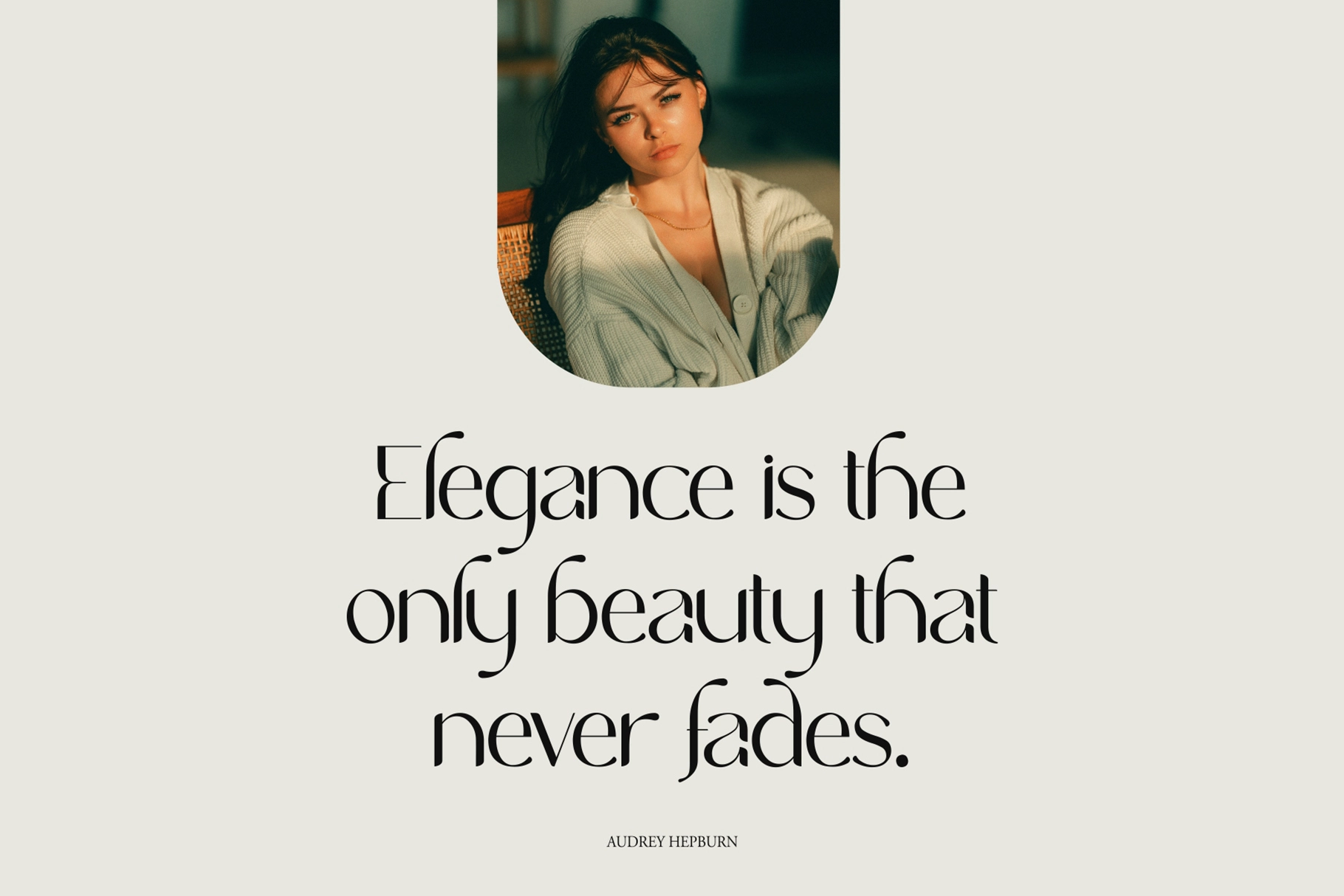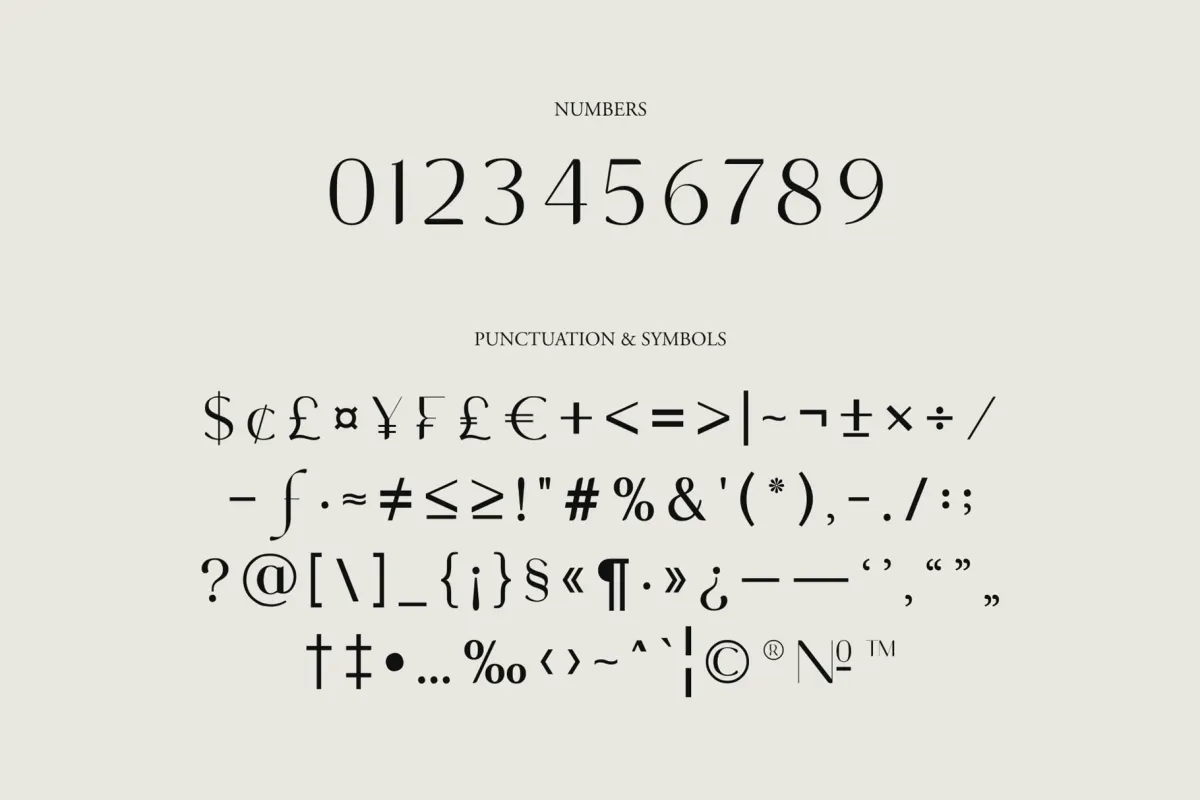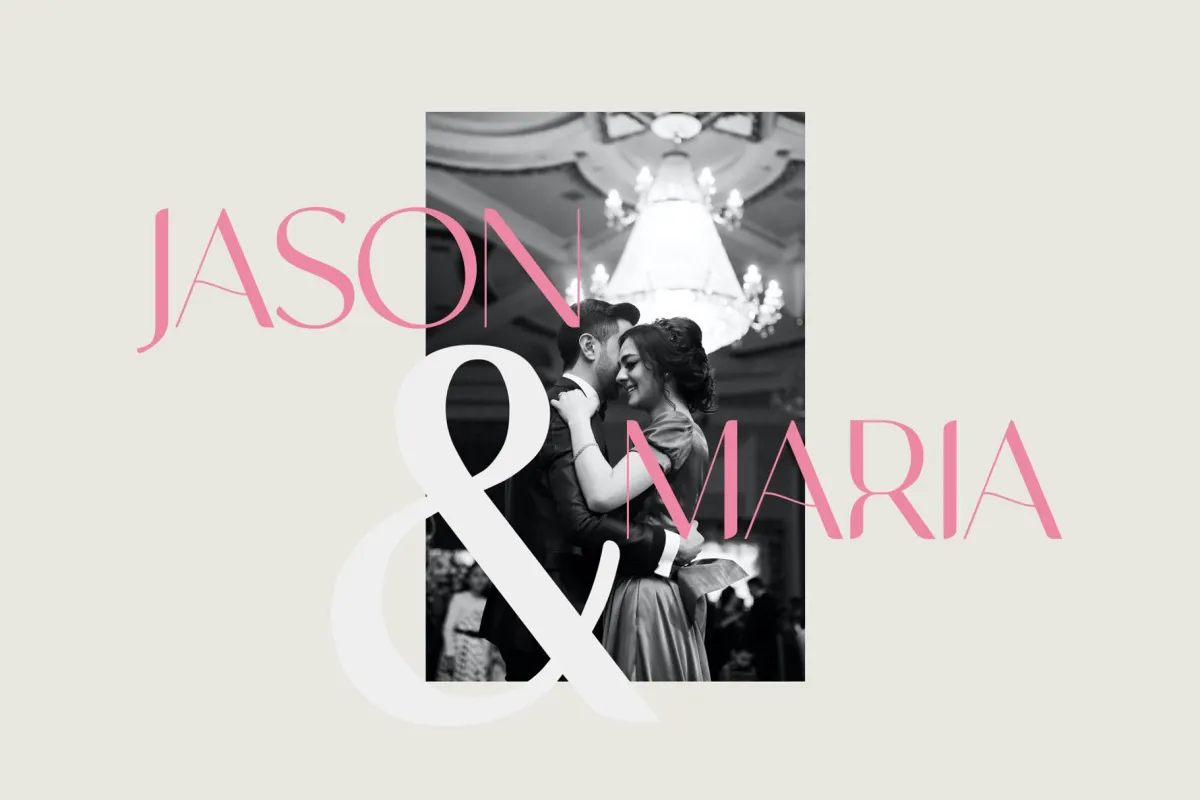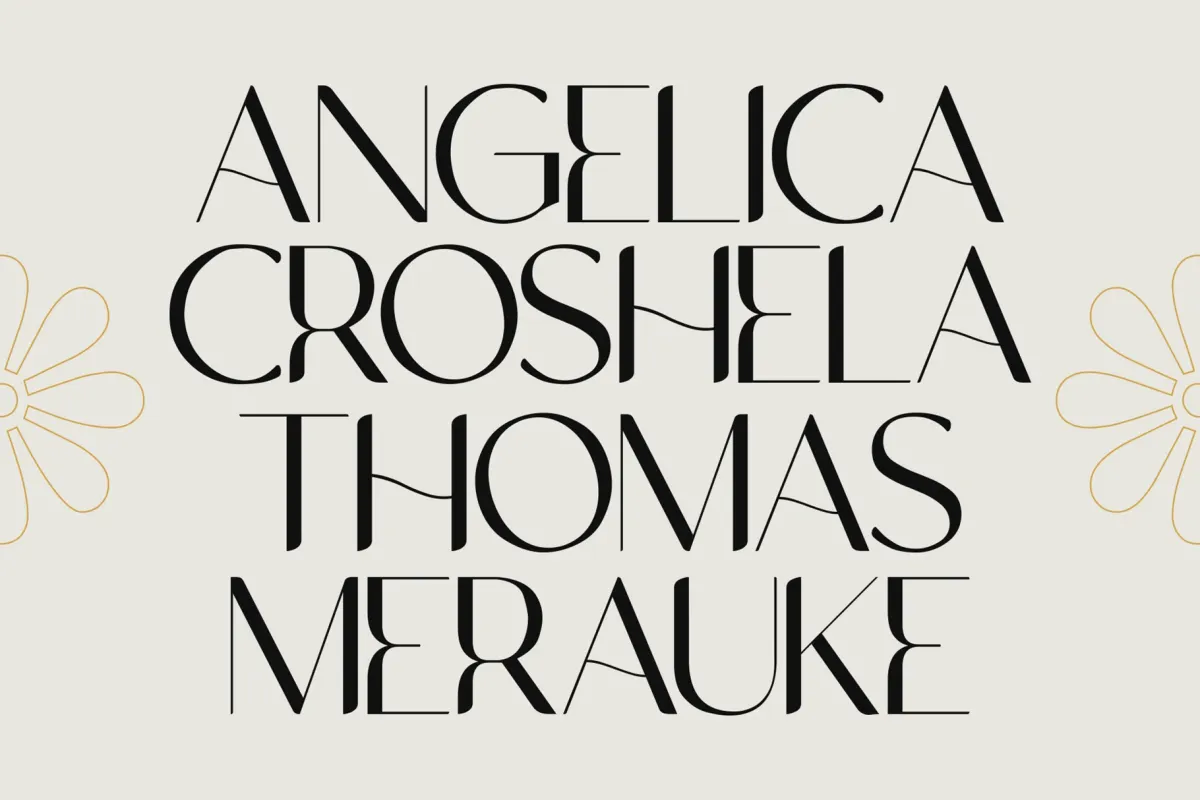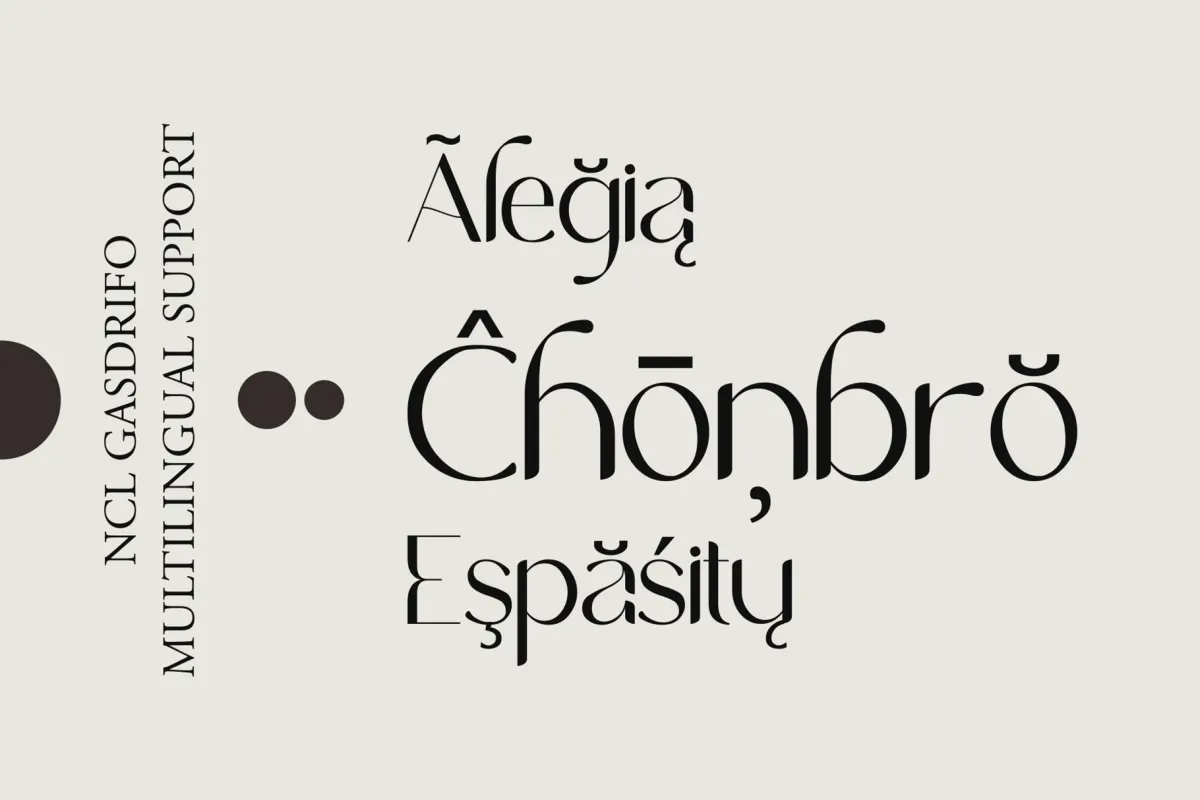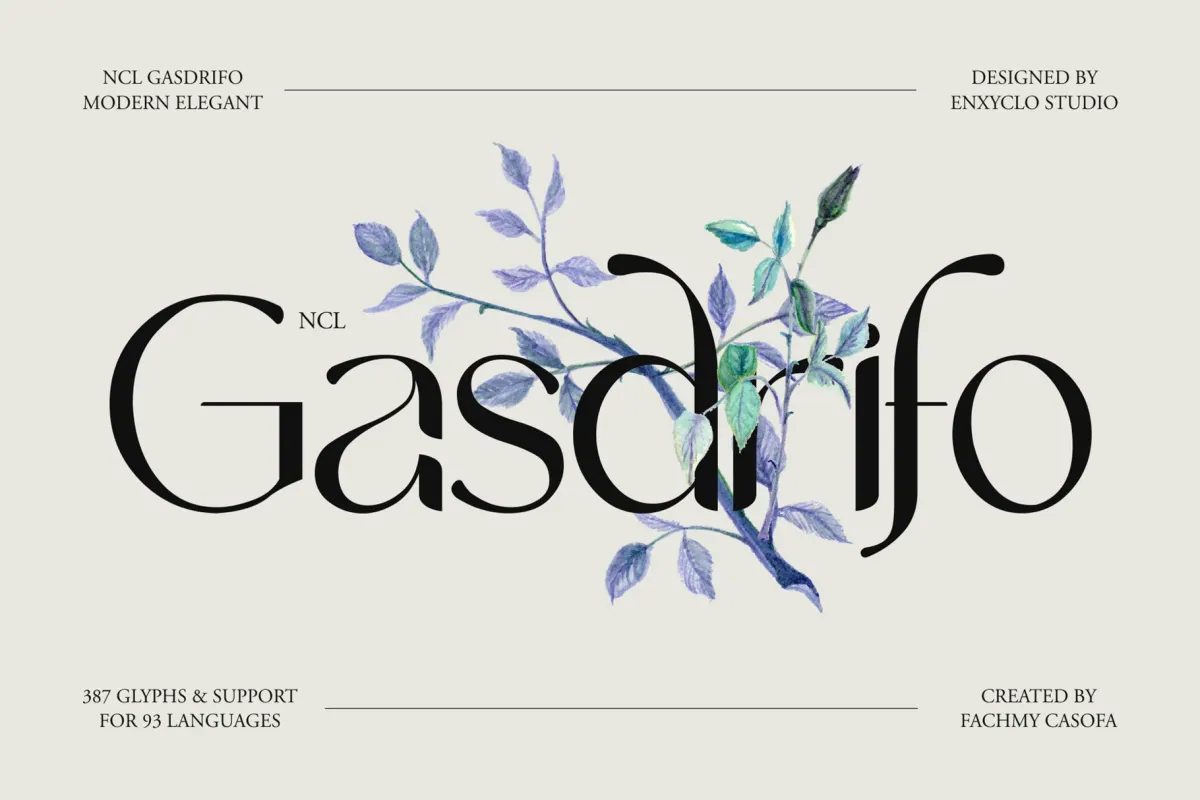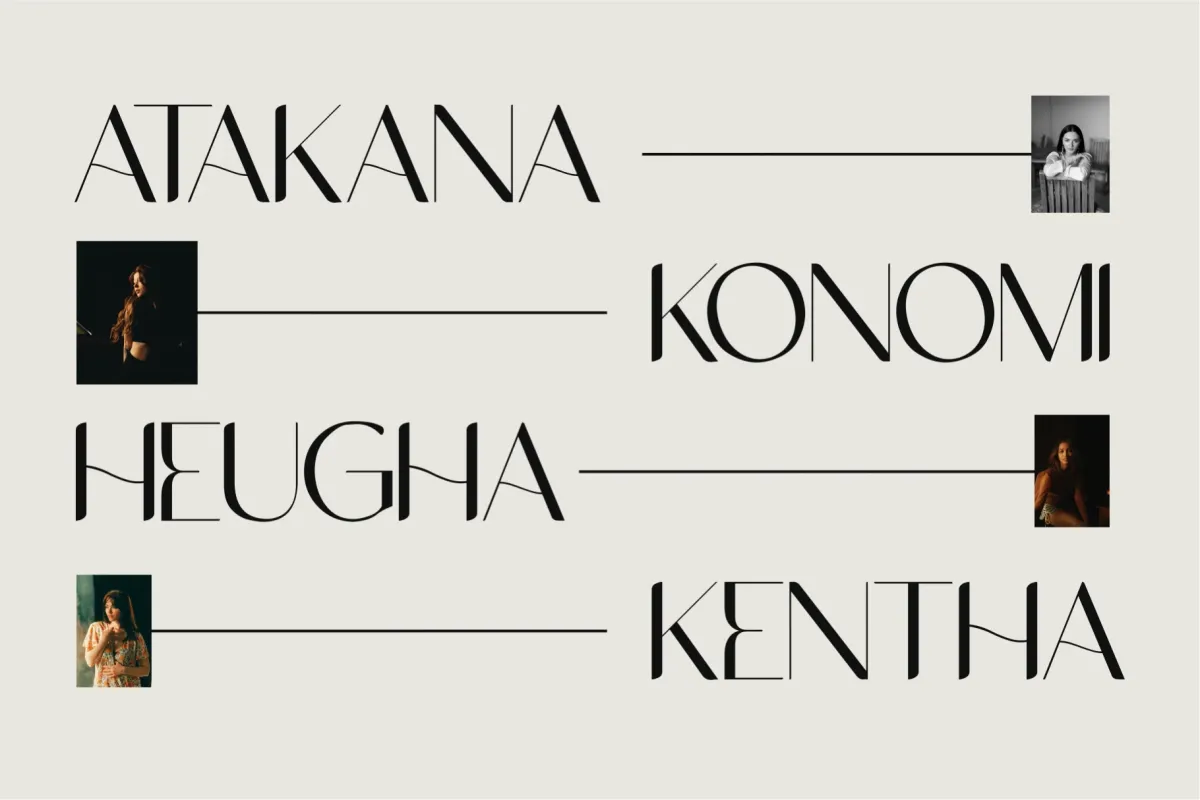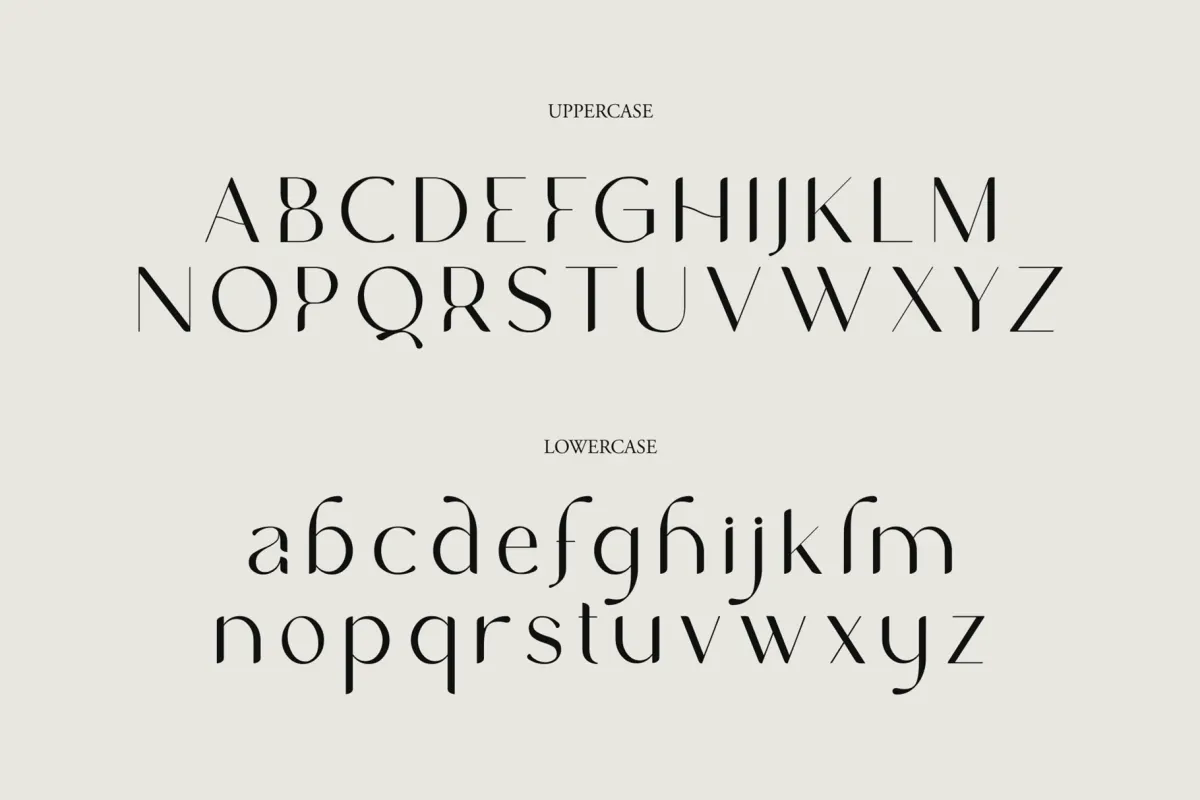
Gasdrifo - Luxury Elegant Font
Gasdrifo – Luxury Elegant Font is a refined modern typeface designed to bring sophistication and style to contemporary design projects. With its elegant letterforms, balanced proportions, and clean structure, Gasdrifo delivers a luxurious aesthetic that works beautifully for high-end branding and editorial design. The font’s graceful character shapes create a polished look that elevates logos, headlines, and visual identities.
Crafted for strong visual impact in large display sizes while remaining readable in smaller layouts, Gasdrifo is perfect for wedding designs, magazines, posters, websites, branding, and premium packaging. Its elegant personality and versatile structure make it an excellent choice for designers looking to add a touch of luxury and refinement to their typography.
- 387 Glyphs
- Uppercase & Lowercase Characters
- Punctuation & Symbols
- Modern Luxury Elegant Style